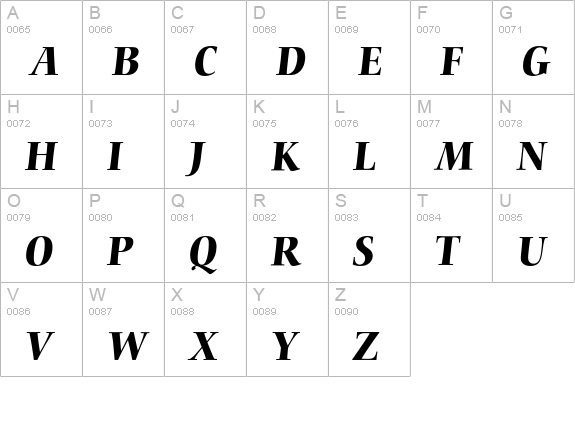
Nofret Expert BQ Medium Italic OsF Font Details
Nofret Expert BQ Medium Italic OsF is a balanced, medium-weight, italic variant in the Nofret typeface family \xE2\x80\x94 well suited to sub-headlines, navigation, and balanced editorial work.
Nofret Expert BQ Medium Italic OsF font is a stunning typeface that exudes elegance and sophistication. Its sleek and modern design makes it ideal for a wide range of projects, from branding to editorial design. The italic style adds a touch of flair and sophistication to any text, making it stand out from the crowd. What's even better is that the Nofret Expert BQ Medium Italic OsF font is available for free download at FontsMarket.com. This means you can easily access this beautiful font and use it in your projects without any cost. Take advantage of this amazing opportunity to enhance your designs with the Nofret Expert BQ Medium Italic OsF font today!